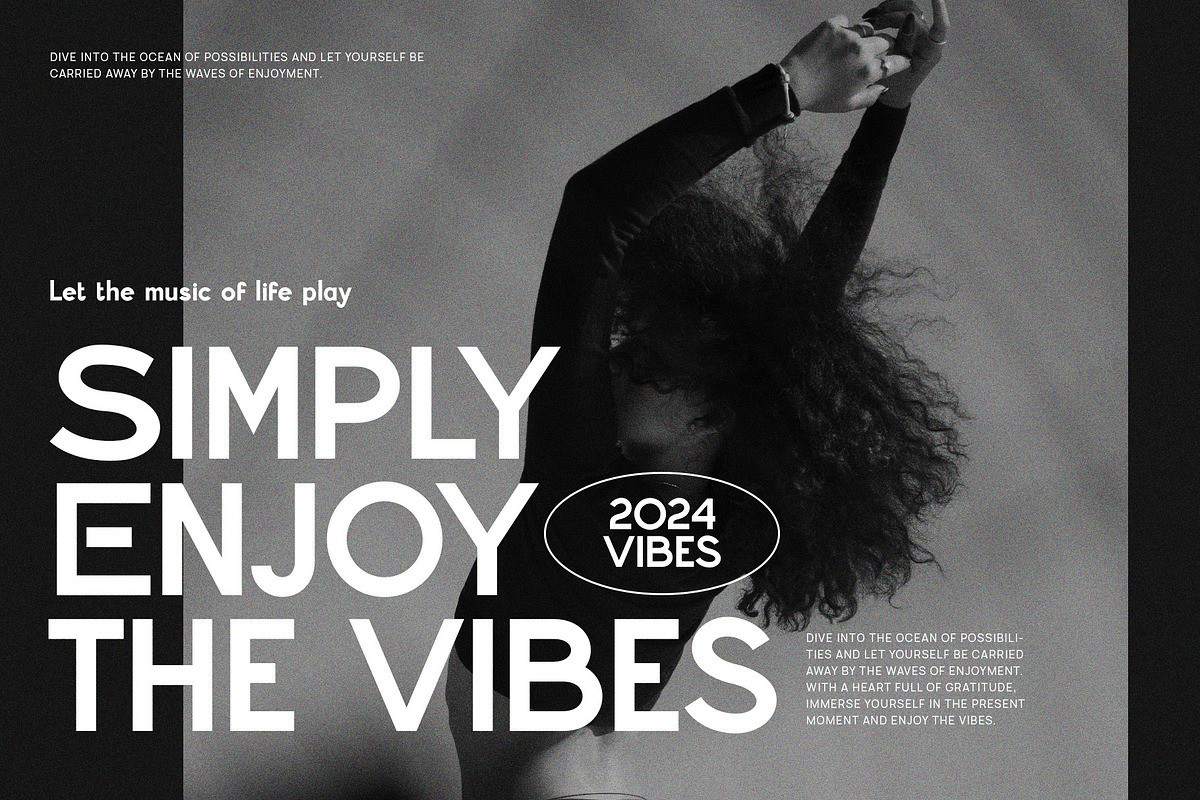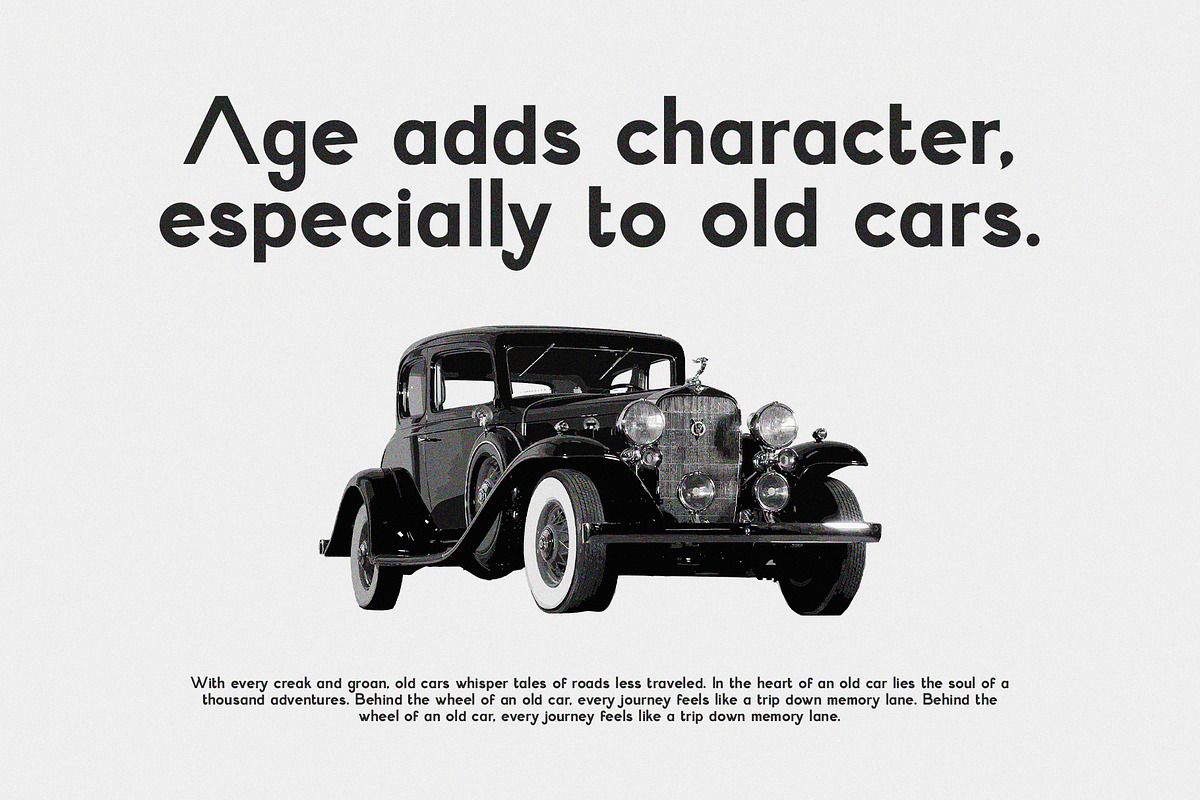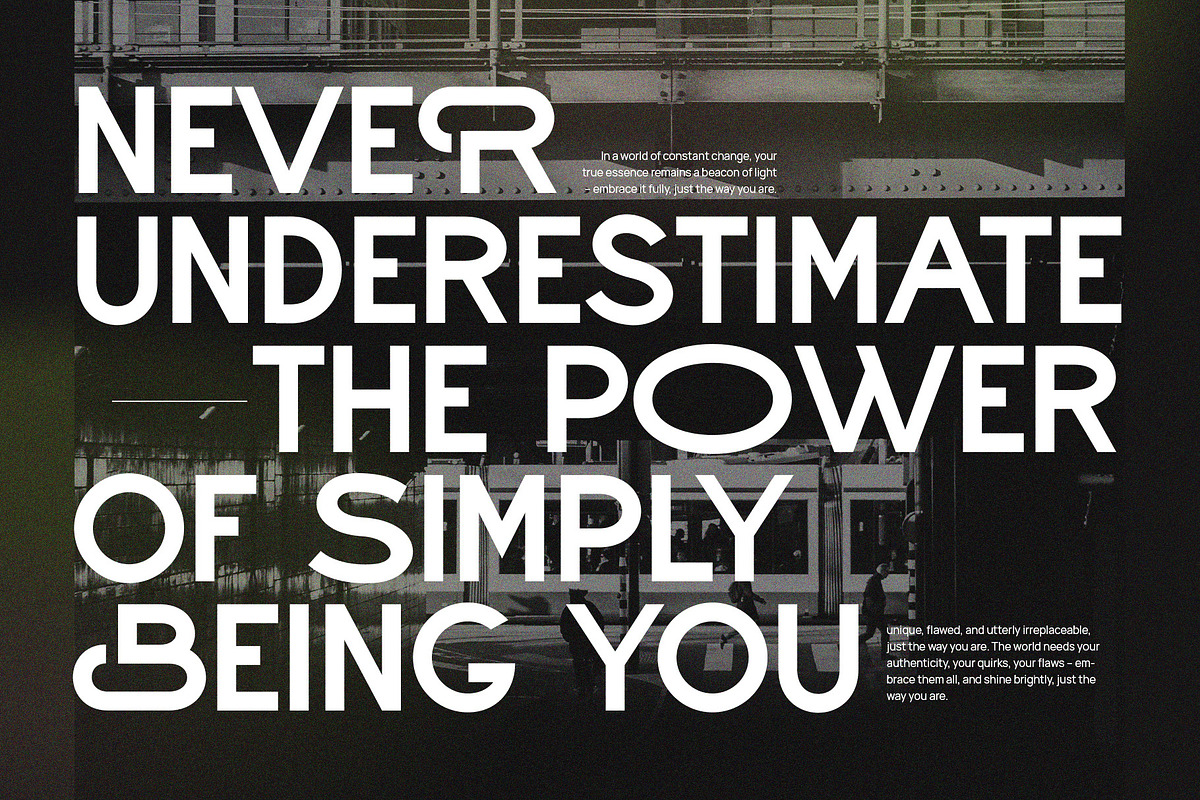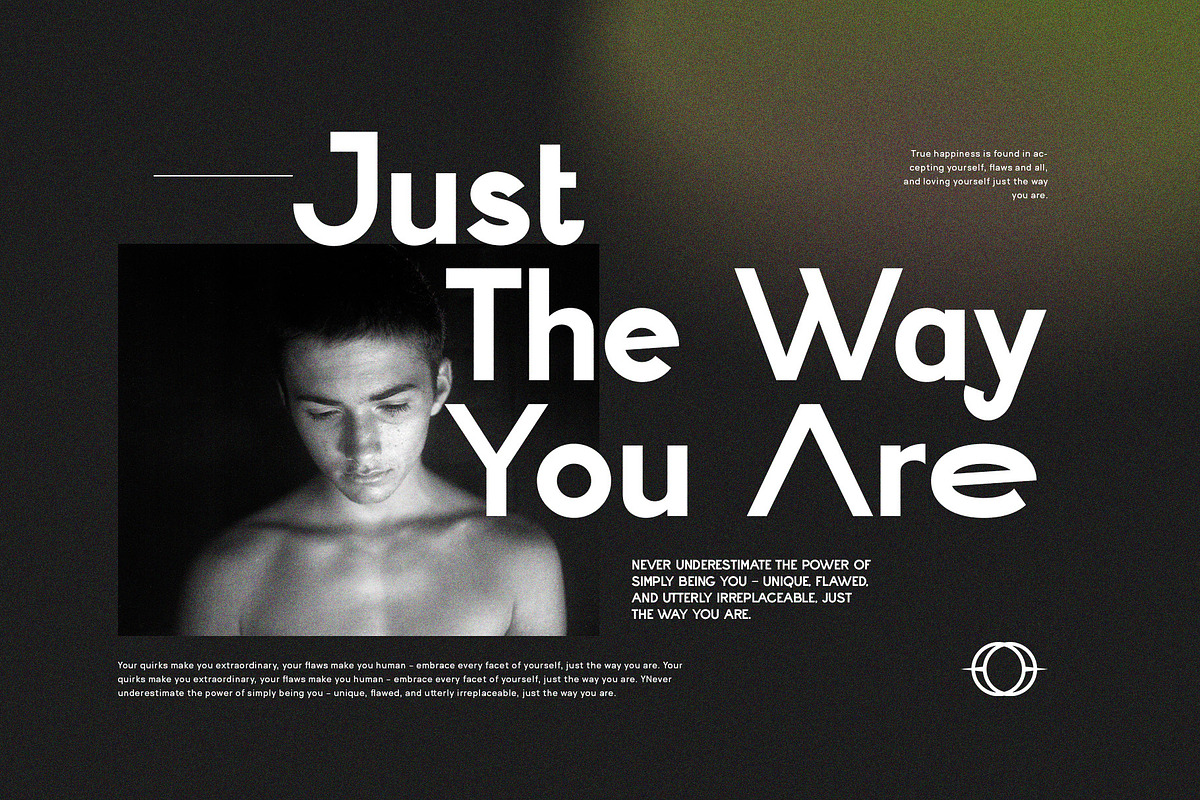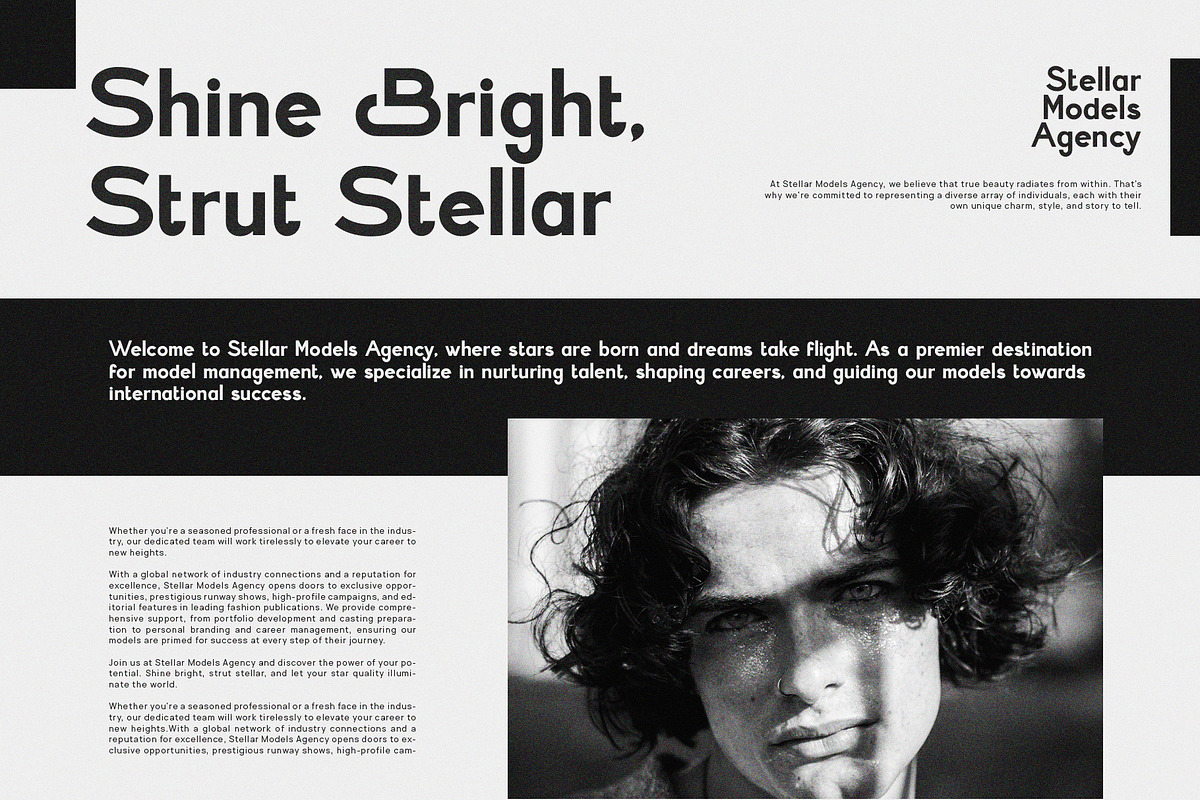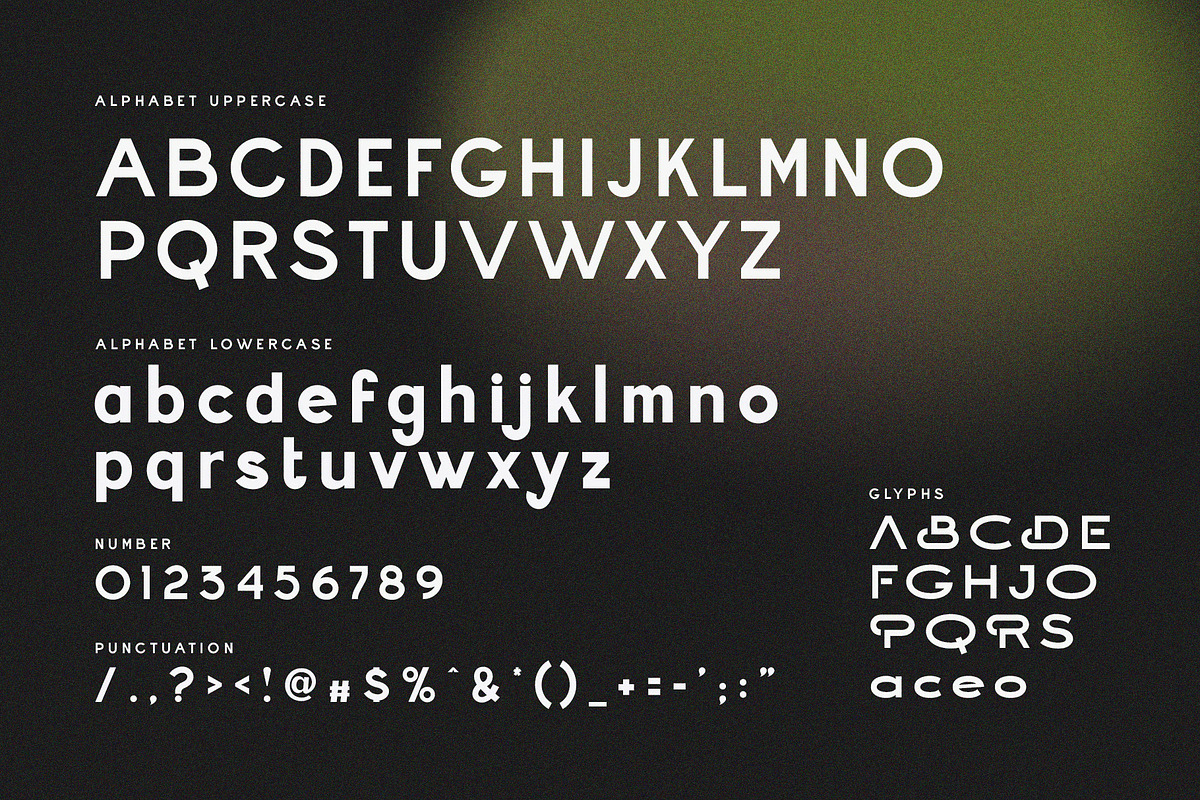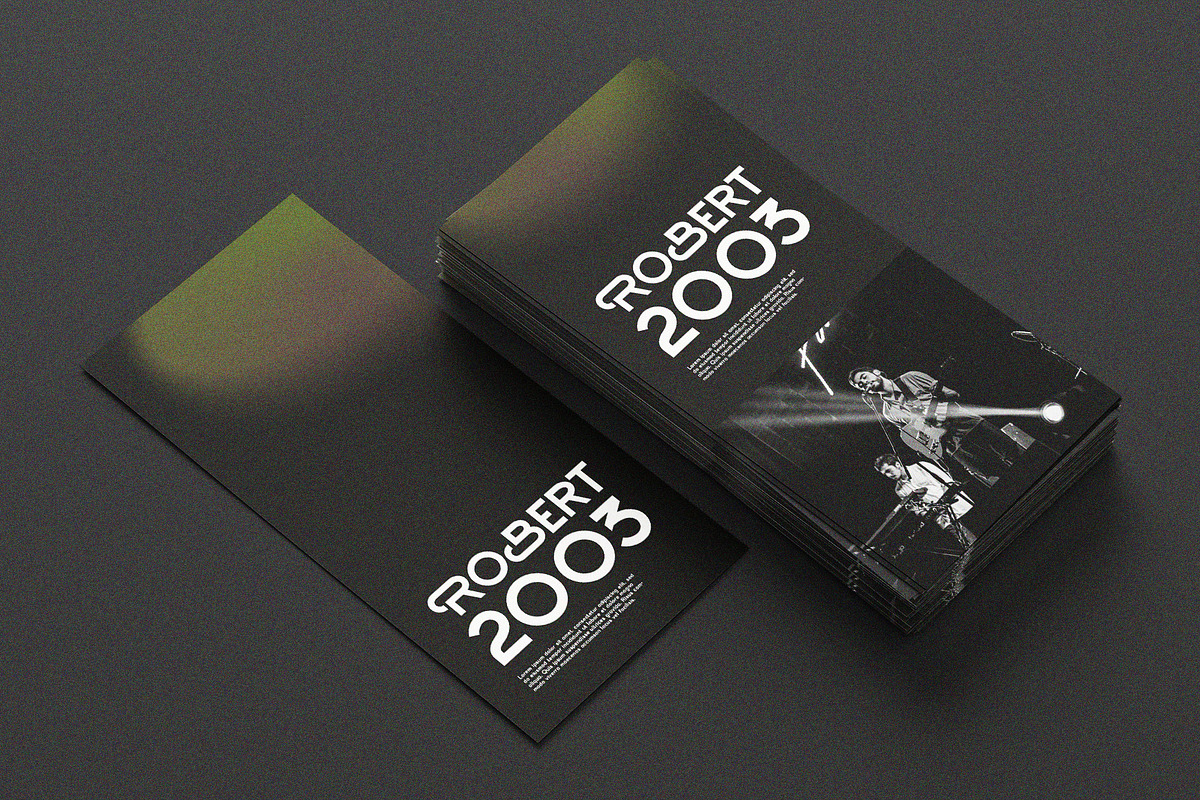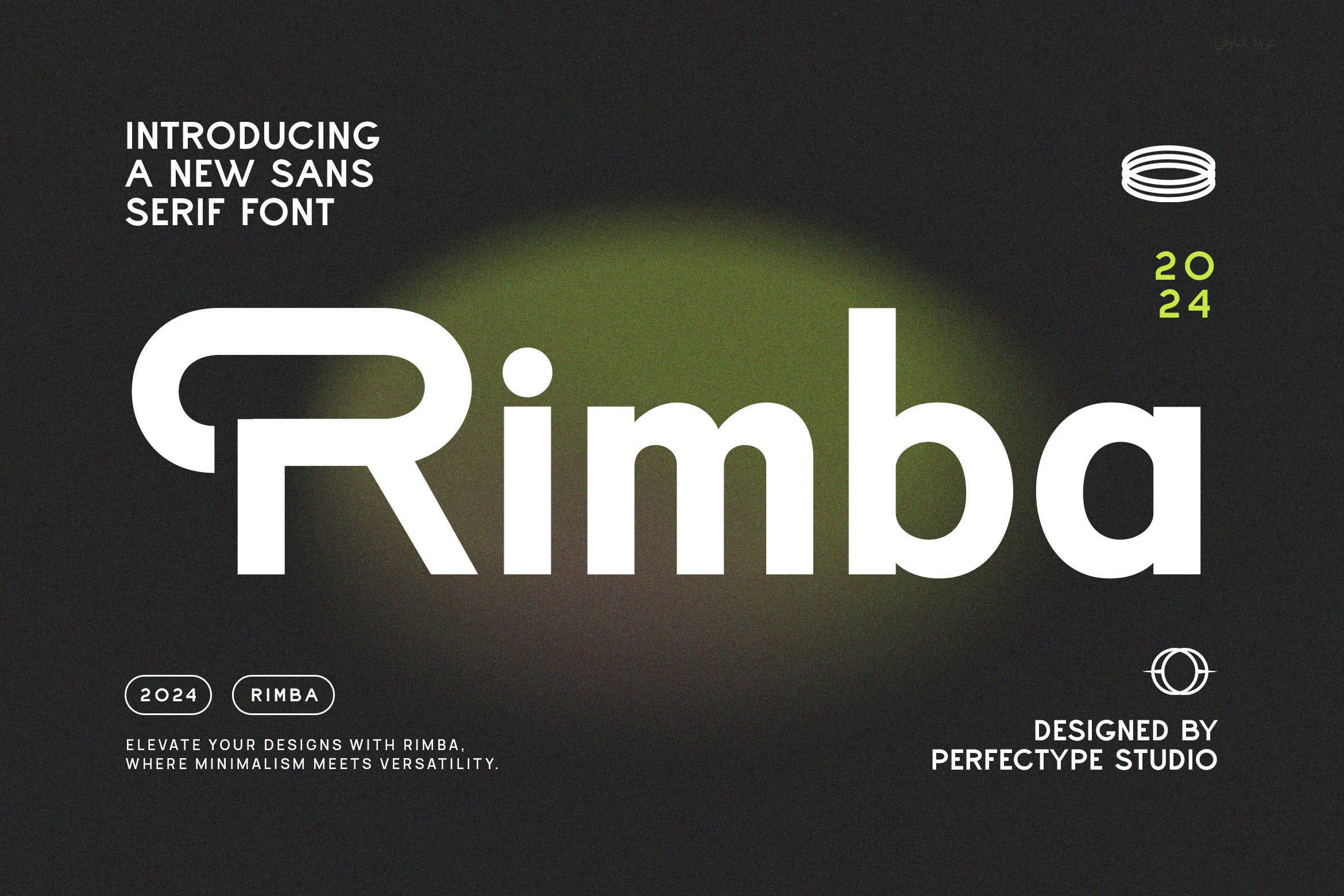
Rimba Modern Sans Serif Font
This is a sans serif font. This font was created with balance and high readability. In making it, we prioritize neatness and a detailed philosophy, so that this font is good to use for all your branding needs. This font is intended for any graphic design purposes such as brochures, videos, advertising brands, logos, magazines, layout designs, posters, post templates, games, and others.